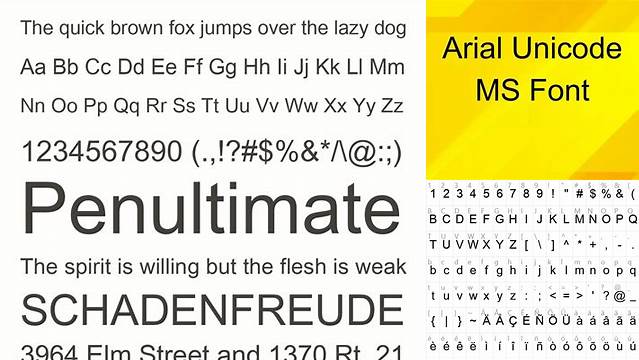
Hey guys! Ever needed that perfect font that just gets all those special characters? You know, the ones that make your documents look super professional and globally-friendly? Well, you're probably thinking about Arial Unicode MS. It's like the Swiss Army knife of fonts, supporting a massive range of characters. Finding a reliable source to download fonts arial unicode ms can feel like searching for a needle in a haystack. But don't worry, I've got you covered! This guide will walk you through everything you need to know to get this versatile font onto your computer, legally and safely. We'll cover where to find it, how to install it, and even some troubleshooting tips if things get a little wonky. So, let's dive in and get your documents looking their best!
What is Arial Unicode MS?
Alright, let's start with the basics. What exactly is Arial Unicode MS? It's a typeface, or font family, that's designed to cover a huge range of characters from different languages and scripts. Unlike your standard Arial, which mostly sticks to Latin characters, Arial Unicode MS includes glyphs for languages like Arabic, Chinese, Japanese, Korean, and a whole lot more. This makes it incredibly useful for anyone working with multilingual content or needing to display special symbols. If you're a student writing about international affairs, a business dealing with global clients, or just someone who loves languages, Arial Unicode MS can be a lifesaver. Imagine trying to write a report that includes both English and Mandarin Chinese – without a Unicode font, you'd be stuck with boxes or strange symbols instead of actual characters. Arial Unicode MS ensures that everyone can read your documents, no matter what language they're written in. When you download fonts arial unicode ms, you're essentially unlocking a whole new world of typographic possibilities, enabling you to communicate effectively across different languages and cultures. It bridges the gap between alphabets and scripts, making your digital communication more inclusive and accessible to a global audience.
Why Use Arial Unicode MS?
Okay, so why should you even bother to download fonts arial unicode ms? Well, think about it this way: communication is key, right? And in today's globalized world, that means being able to communicate with anyone, anywhere. Arial Unicode MS helps you do just that. It supports a vast array of characters, meaning you can write in multiple languages without worrying about missing glyphs or weird symbols. For example, let's say you're creating a presentation for an international audience. You need to include names written in Cyrillic, Japanese, and Hebrew, alongside English. Without Arial Unicode MS, you'd be scrambling to find different fonts that support each language, and your presentation would look like a jumbled mess. But with Arial Unicode MS, everything looks consistent and professional. Plus, it's a widely recognized and respected font, so it's a safe bet for ensuring readability across different platforms and devices. Whether you're working on documents, websites, or graphic designs, Arial Unicode MS ensures that your message is clear, accurate, and accessible to everyone, regardless of their language or location. Download fonts arial unicode ms to make your communications clear and accessible. It's like having a universal translator for your computer!
Conclusion: Mastering Arial Unicode MS
So there you have it! A comprehensive guide to download fonts arial unicode ms and mastering its use. From understanding what it is and why it's useful, to installing it on different operating systems and troubleshooting common issues, we've covered all the bases. Arial Unicode MS is a powerful font that can greatly enhance your ability to communicate effectively in a globalized world. By supporting a vast range of characters and languages, it allows you to create documents and websites that are accessible to a wider audience. Whether you're a student, a business professional, or a creative designer, Arial Unicode MS can be a valuable asset in your toolkit. Just remember to obtain the font legally, use it responsibly, and follow the tips and best practices outlined in this guide. With a little bit of effort and attention to detail, you can unlock the full potential of Arial Unicode MS and create stunning and effective communications that transcend language barriers. So go ahead, download fonts arial unicode ms, experiment with its features, and unleash your creativity! The world is waiting to see what you can create.